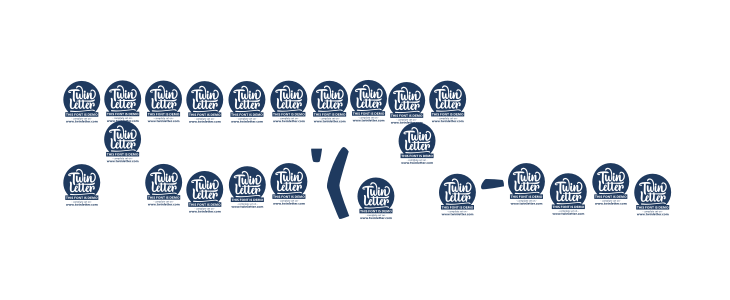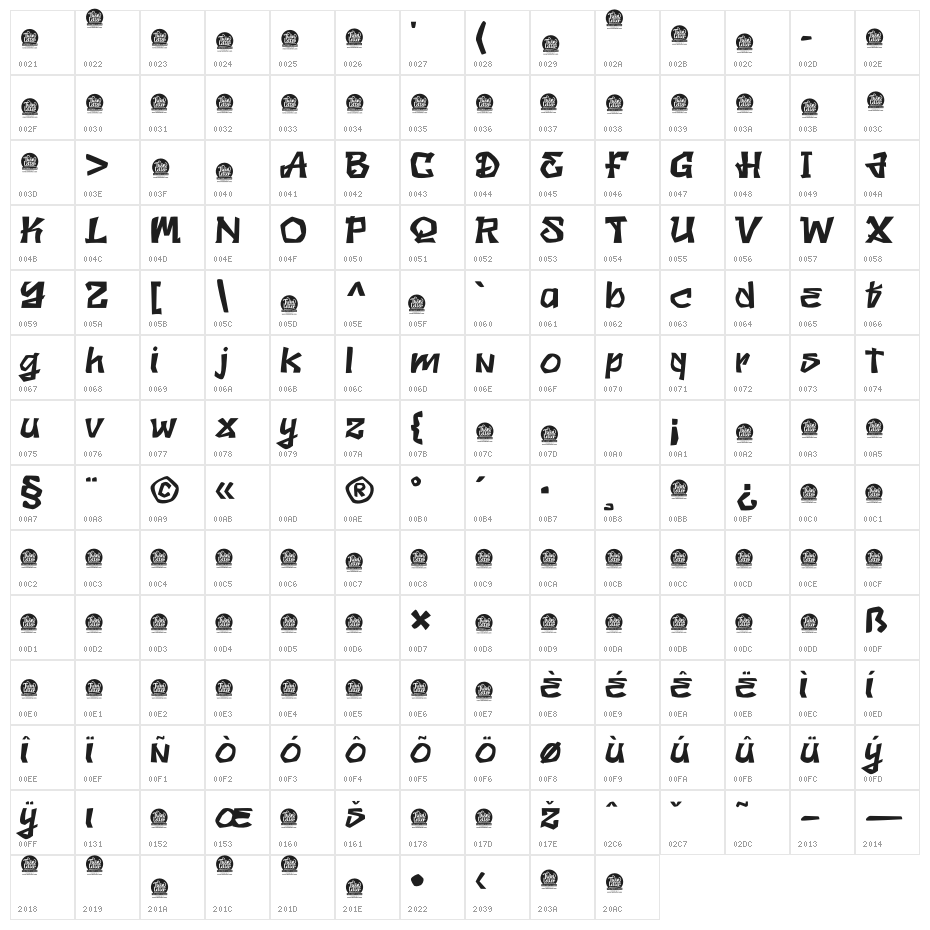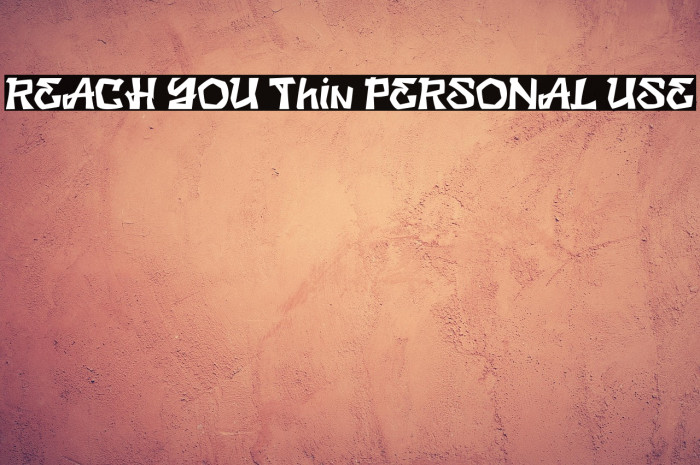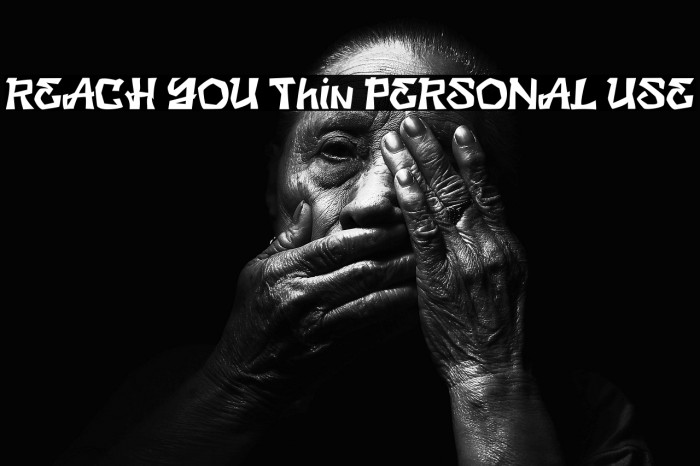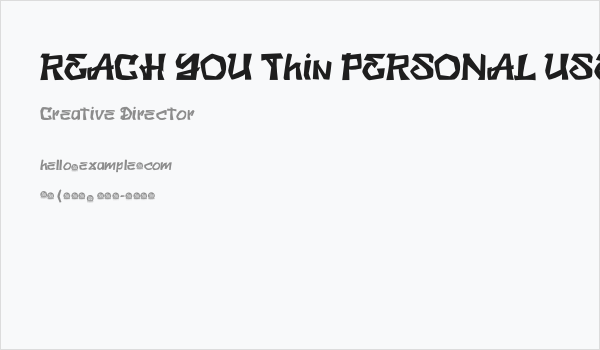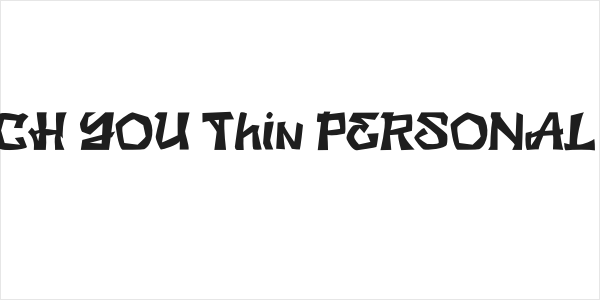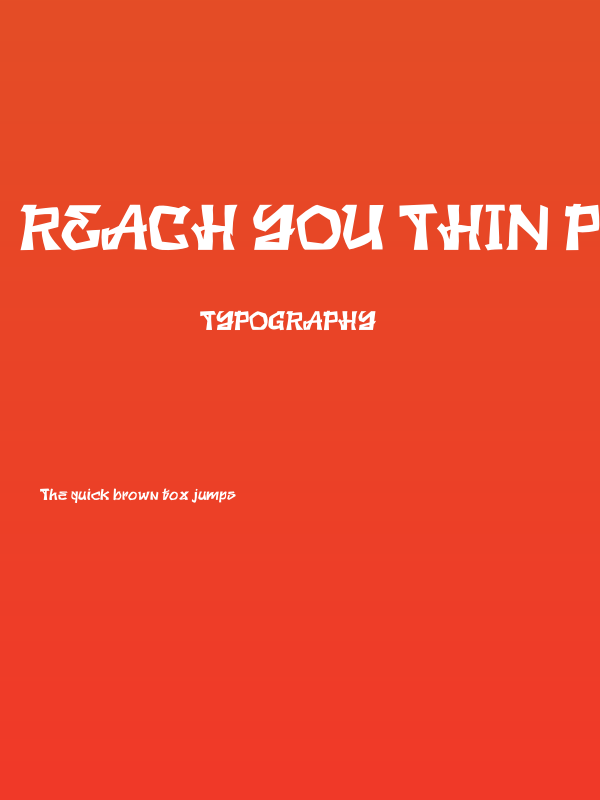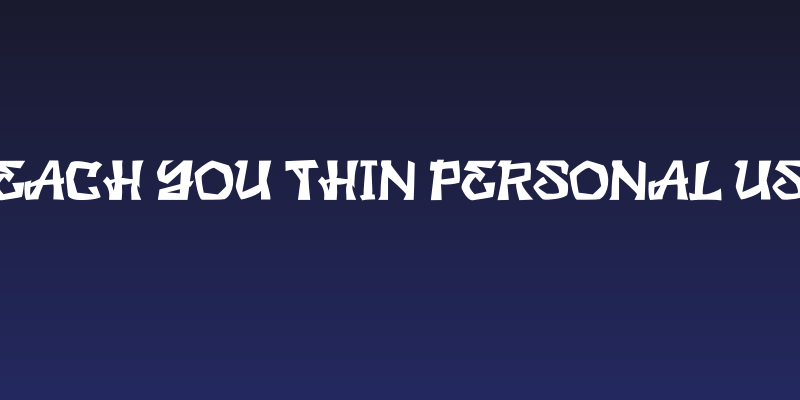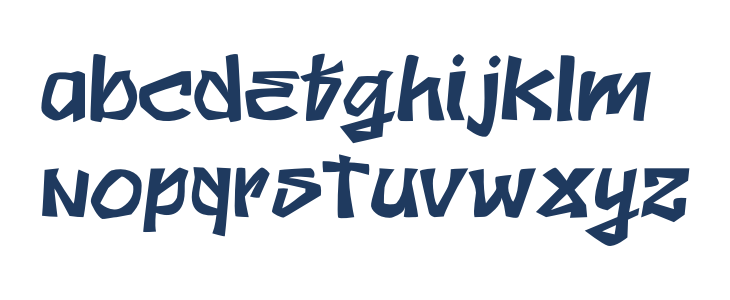
REACH YOU Thin PERSONAL USE Font
REACH YOU Thin PERSONAL USE Description
This font features a bold and dynamic style with sharp, angular edges and a graffiti-like appearance. The uppercase letters are particularly striking, with unique geometric shapes that give each character a distinct personality. The lowercase letters maintain the same edgy aesthetic, creating a cohesive look across the alphabet. The numbers and special characters are equally stylized, ensuring consistency throughout. This font's design is both modern and rebellious, making it stand out in any application.
| Overall Style | Modern, Urban |
| Use Case | Logos, Posters, Album Covers |
| Proposed Projects | Ideal for street art designs, edgy branding, music album covers, and urban-themed posters. |